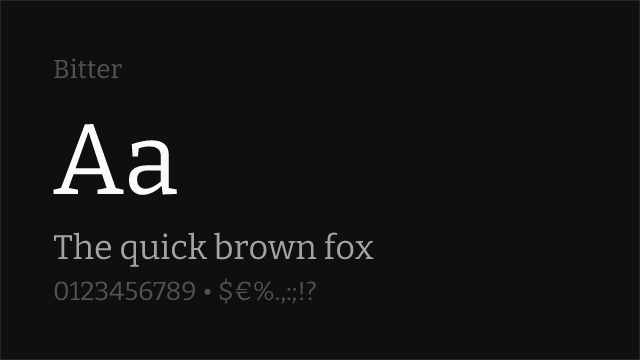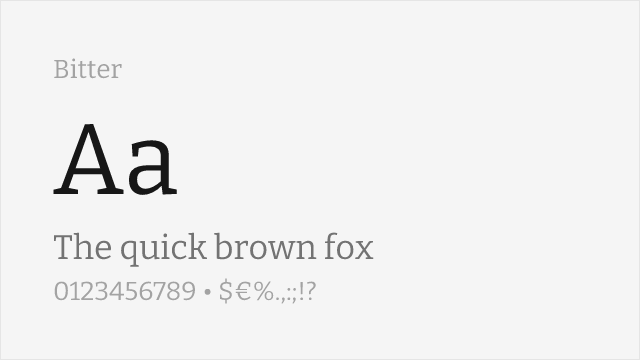
Free Alternatives to Rockwell with Slab Serif Style
Rockwell is known for its slab serif aesthetic. If you're looking for a free serif font with a similar slab serif feel, these 6 alternatives offer comparable characteristics. We've identified 6 that are especially well-suited for this context. All are available under open-source licenses for unrestricted commercial use.
#1 Roboto Slab 85%
Modern geometric slab with excellent web support and variable font option
Why it matches: Roboto Slab shares Rockwell's geometric slab serif foundation with similar monoweight construction and unbracketed rectangular serifs. Both feature sturdy, architectural letterforms that project strength and reliability. Roboto Slab's Google optimization makes it ideal for digital projects while maintaining Rockwell's essential bold character.
#2 Arvo 75%
Friendly geometric slab with good readability and distinctive character
Why it matches: Arvo offers a friendlier interpretation of the geometric slab serif with ball terminals that soften the typically stern aesthetic. While less architecturally rigid than Rockwell, Arvo captures similar boldness and presence. For projects needing Rockwell's weight class with added warmth, Arvo provides an approachable alternative.
#3 Bitter 72%
Screen-optimized slab serif with similar sturdy construction
Why it matches: Bitter was engineered for reading on screens, and its sturdy slab construction keeps much of Rockwell's solidity while opening the counters for legibility at small sizes. It is less overtly geometric than Rockwell, leaning editorial rather than architectural, but it holds a page of running text far better. With a full variable axis and true italics, it is the most practical pick when Rockwell-adjacent slabs need to carry body copy, not just headlines.
#4 Rokkitt 70%
Geometric slab with a full variable weight axis, close to Rockwell's monoline spirit
Why it matches: Rokkitt is the closest of the free options to Rockwell's core idea: a geometric slab built from near-monoline strokes and squared-off serifs. It keeps the sturdy, rational feel while adding a complete variable weight axis from Thin to Black, so you can dial in exactly the weight a headline needs. Its terminals run a touch friendlier than Rockwell's strict geometry, but the underlying skeleton is unmistakably the same family of shapes.
#5 Zilla Slab 66%
Mozilla's humanist slab — warmer and less rigid than Rockwell, with true italics
Why it matches: Zilla Slab shares Rockwell's slab-serif confidence but softens the geometry into something more humanist. Where Rockwell is strict and mechanical, Zilla Slab adds warmth and a lightly bracketed serif, which makes it more comfortable at text sizes and friendlier in brand work. It covers Light through Bold and includes genuine italics, so it handles editorial hierarchy that Rockwell alone would struggle with.
#6 Slabo 27px 62%
Single-weight geometric slab tuned for text at 27px — no bold, so plan accordingly
Why it matches: Slabo 27px echoes Rockwell's geometric slab structure but was drawn for one job: rendering crisply at 27 pixels on screen. That size-specific tuning gives it clean, well-defined serifs where a general-purpose slab would blur. The catch is that it ships in a single Regular weight, so it can stand in for Rockwell in a fixed-size heading or label, but it cannot build a weighted hierarchy on its own.